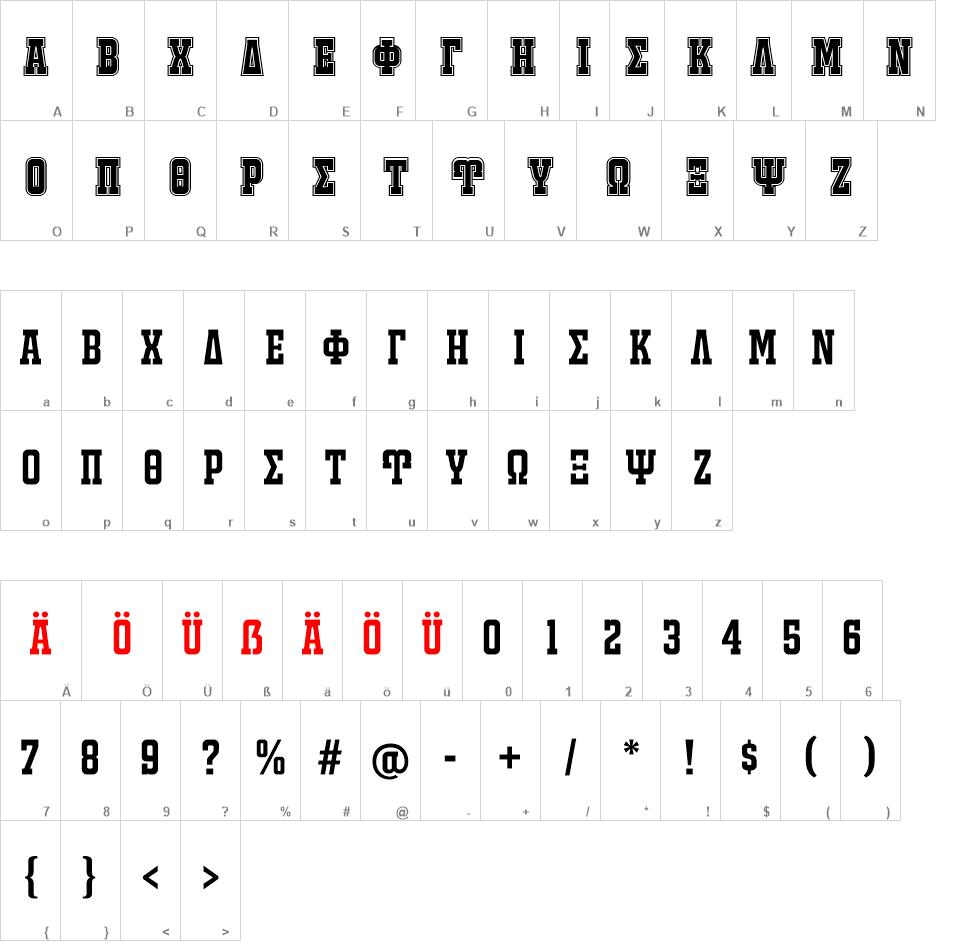
Jackport NCV
OUTLINE GREEK letters in normal UPPERCASE "English" key positions, with REGULAR GREEK letters in lowercase positions. GREEK language characters are also included in all fonts, located in the normal GREEK UNICODE range.